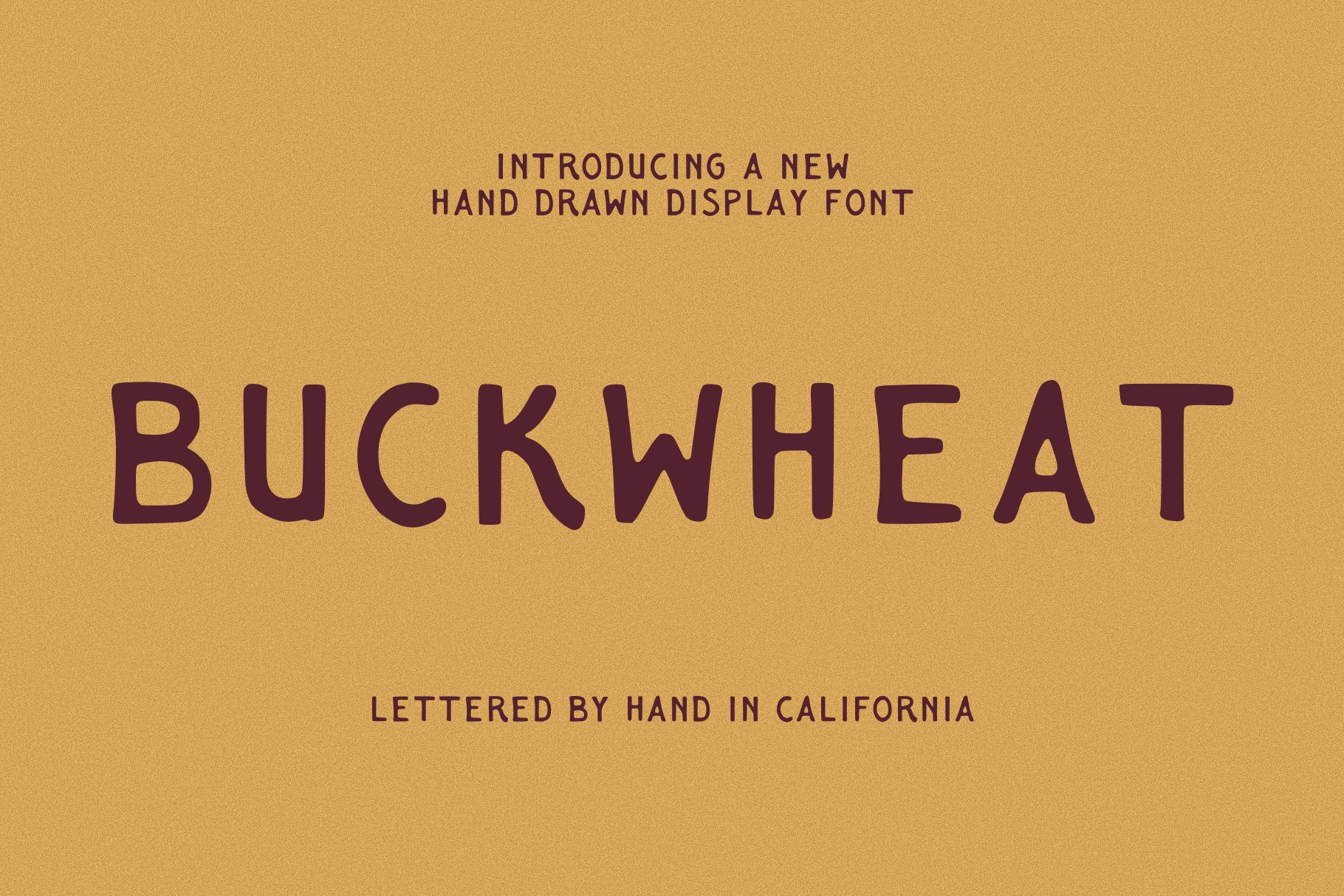
Buckwheat | Hand Drawn Font
This font reminds me of one of my favorite plants, the California Buckwheat, which is hearty and reliable. Buckwheat was hand drawn as a versatile font that brings a subtle western vibe with a gentle softness.
This is an all-caps typeface perfect for branding, logos, stationary, and more.
Uppercase characters
Standard numbers, punctuation, and mathematical symbols